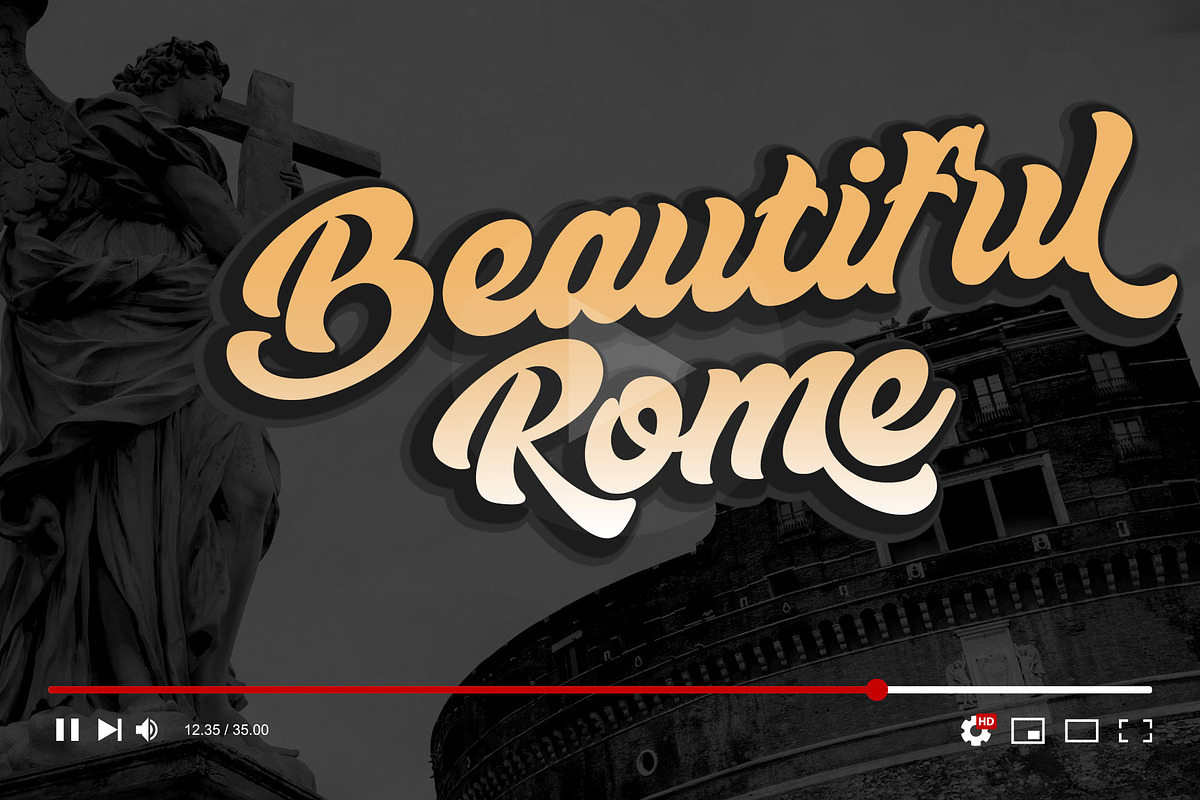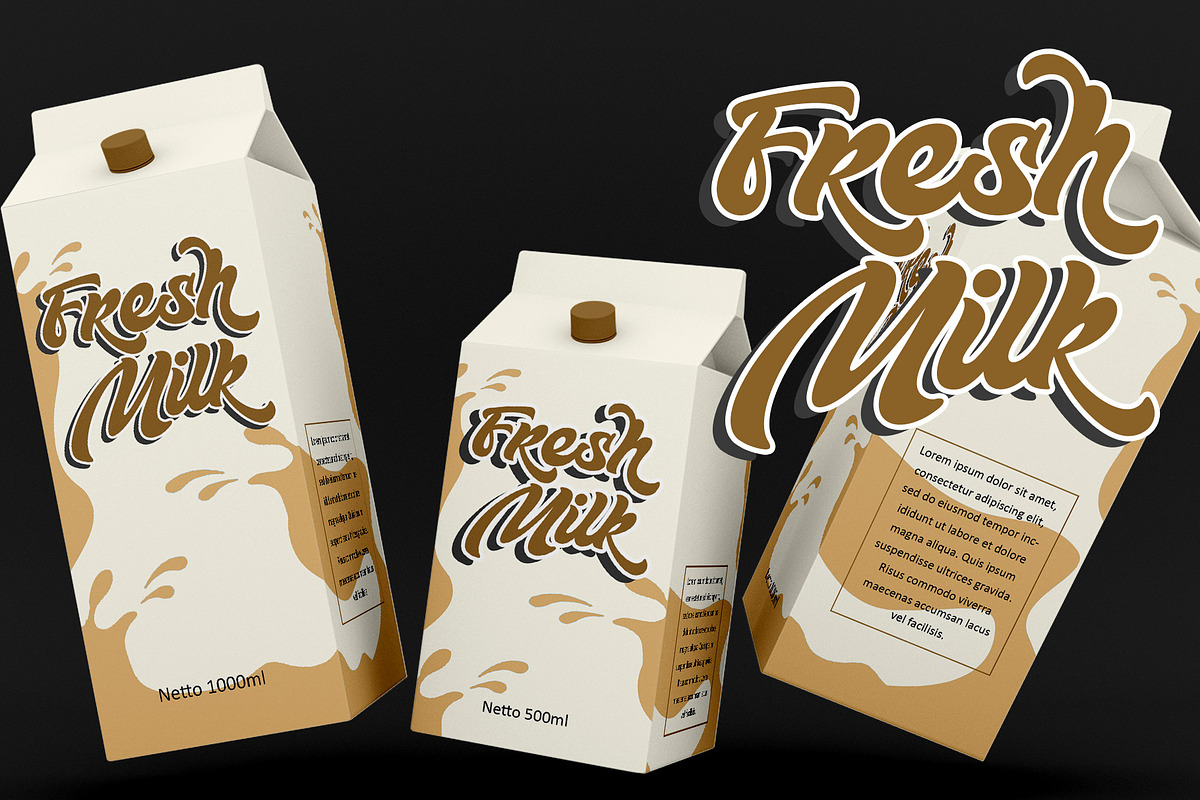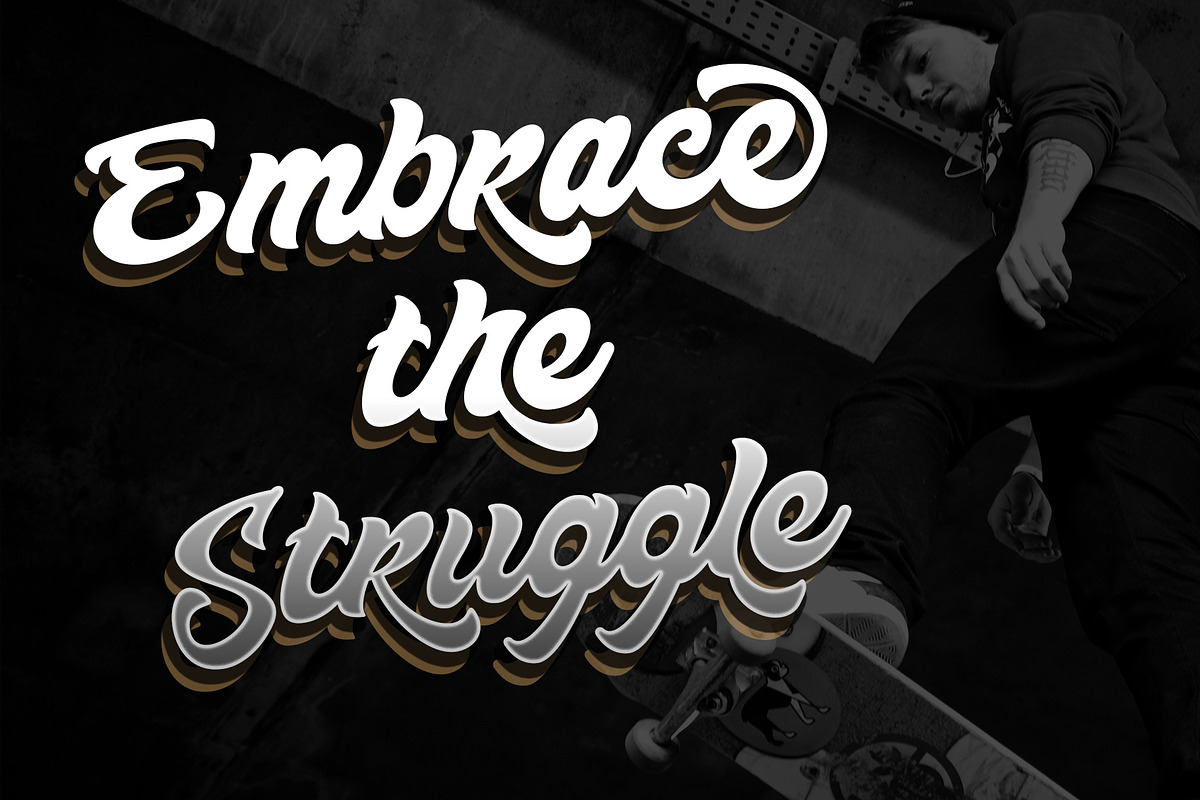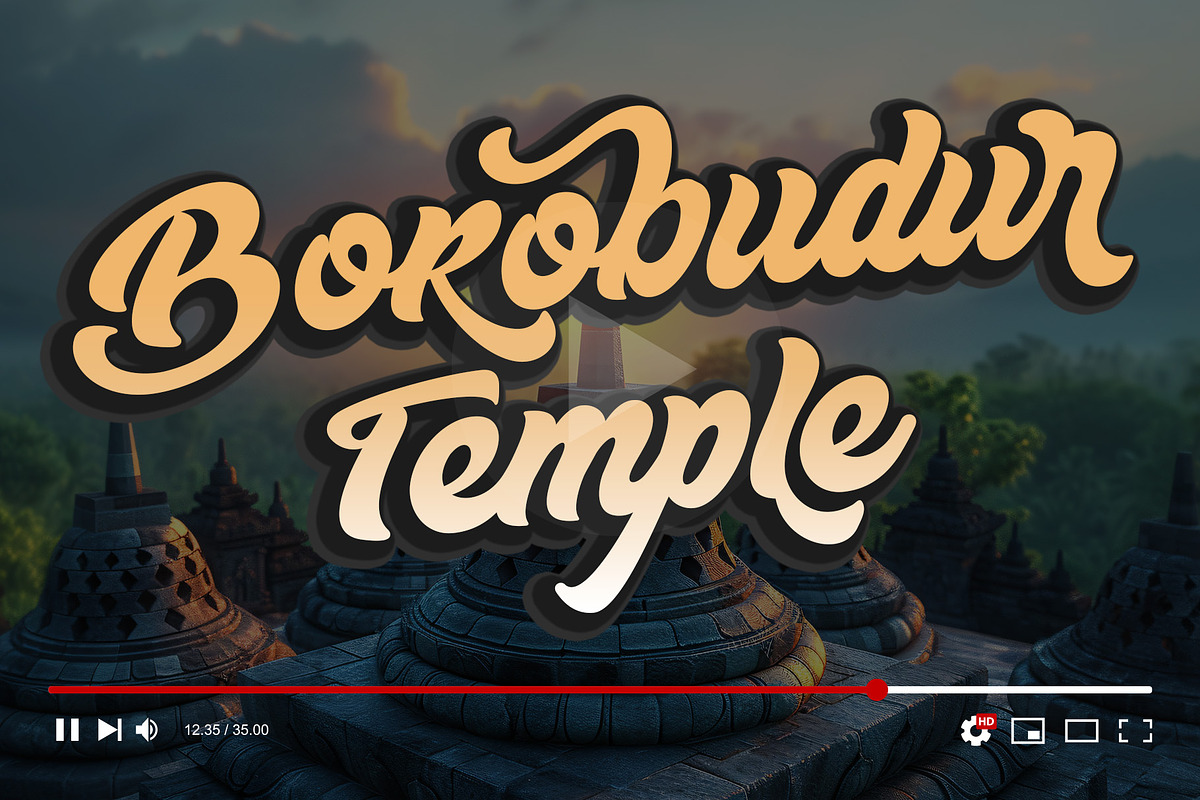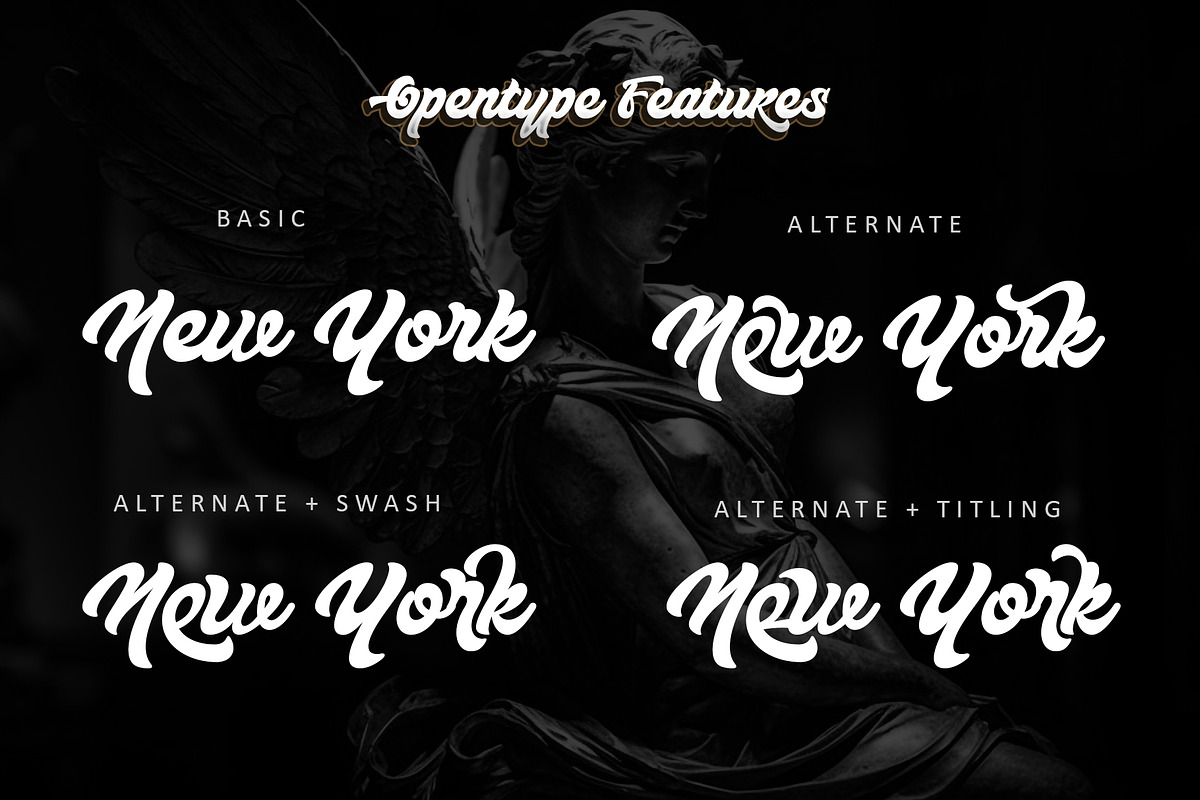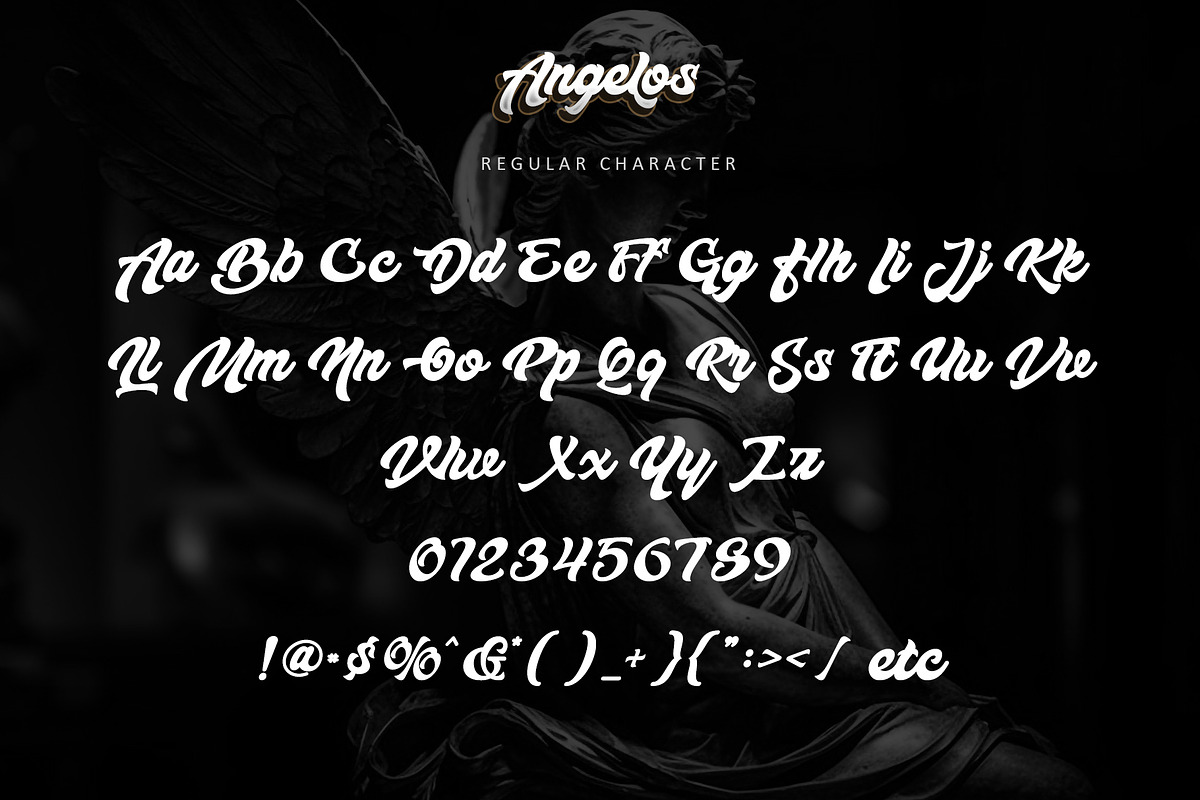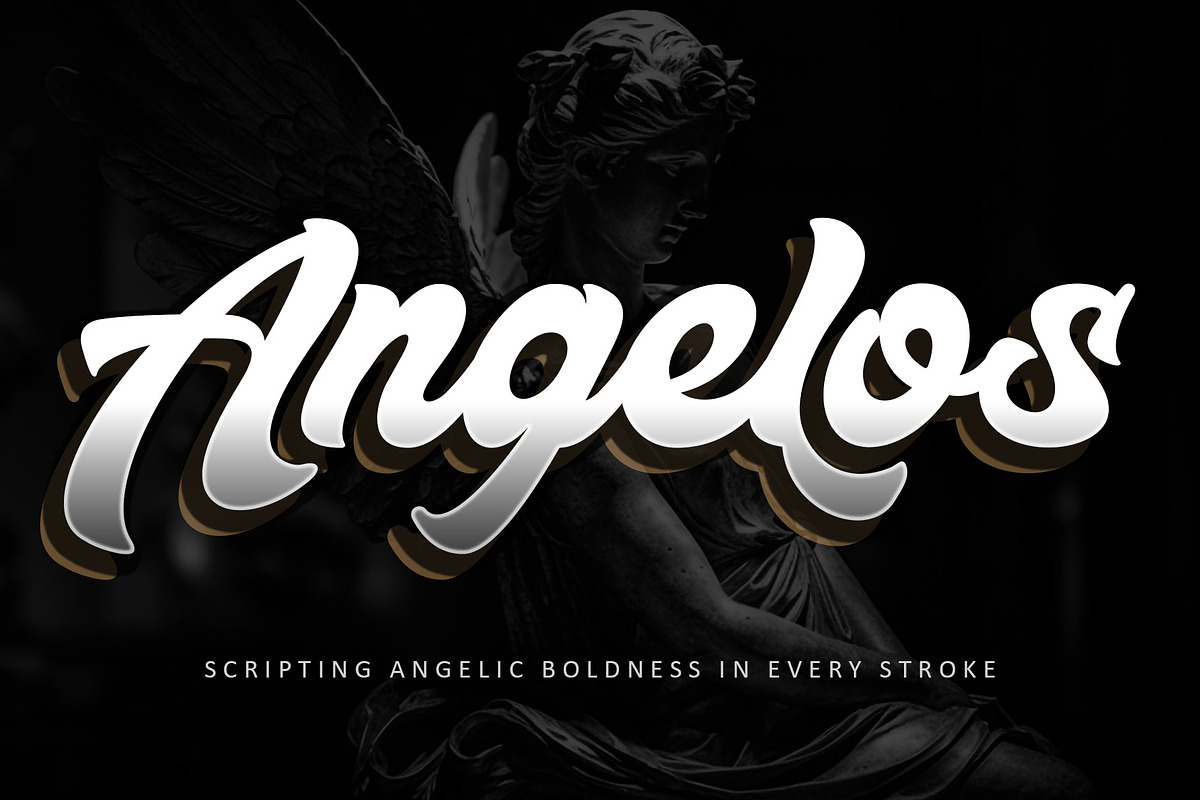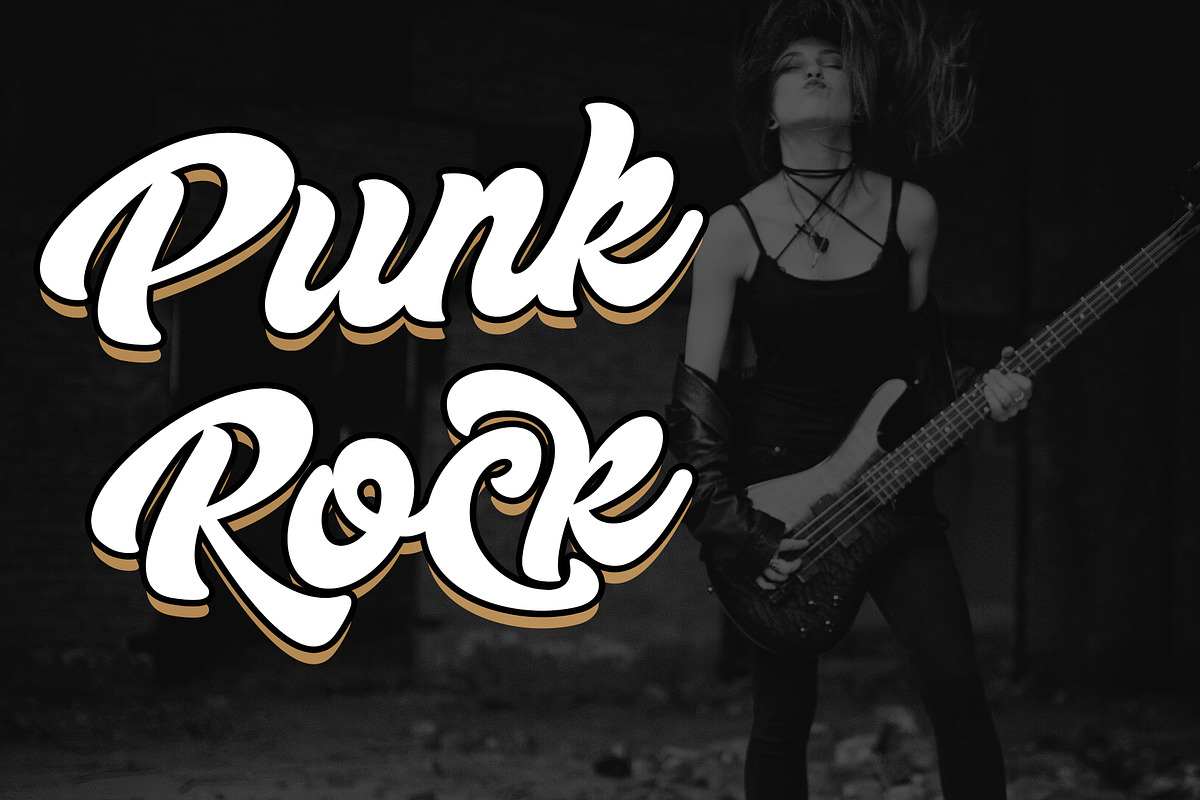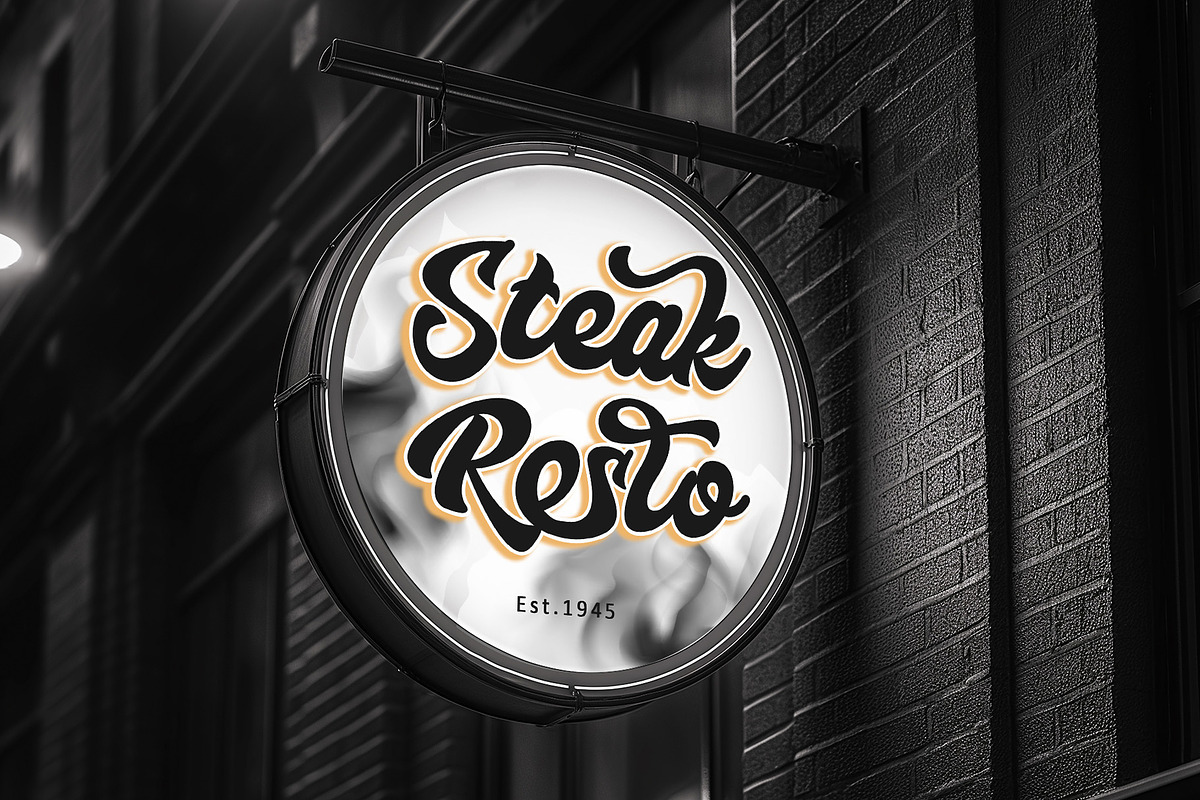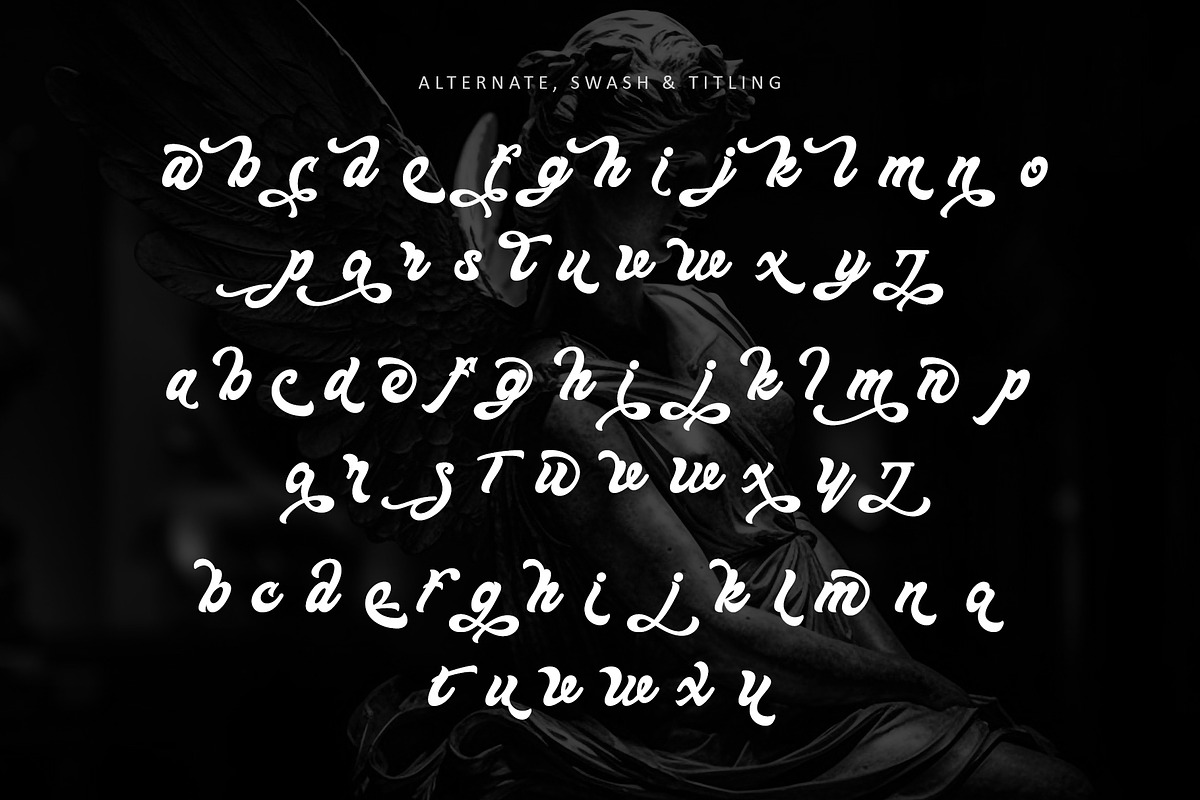
Angelos
Introducing Angelos, a bold script font that embodies modern elegance. Crafted with meticulous care, this font exudes casual charm and versatility, making it a must-have for any design project. Whether used on vibrant backgrounds or as a striking headline, Angelos is sure to make a statement. Plus, its PUA encoding allows easy access to a variety of glyphs and swashes, enhancing its appeal and usability.
- Support multilingual; ä ö ü Ä Ö Ü ß ¿ ¡
- lowercase and uppercase letters
- Alternate, swash, titling, ss01, ss02, ss03, ss04 & ligature